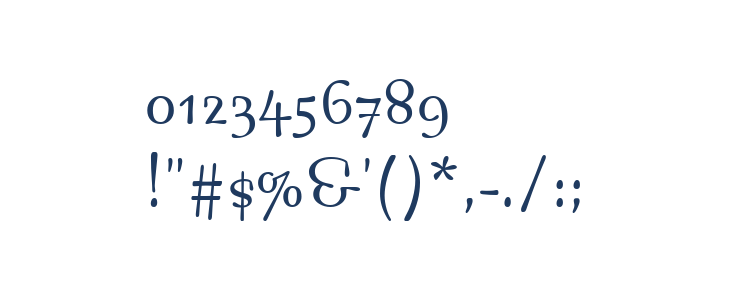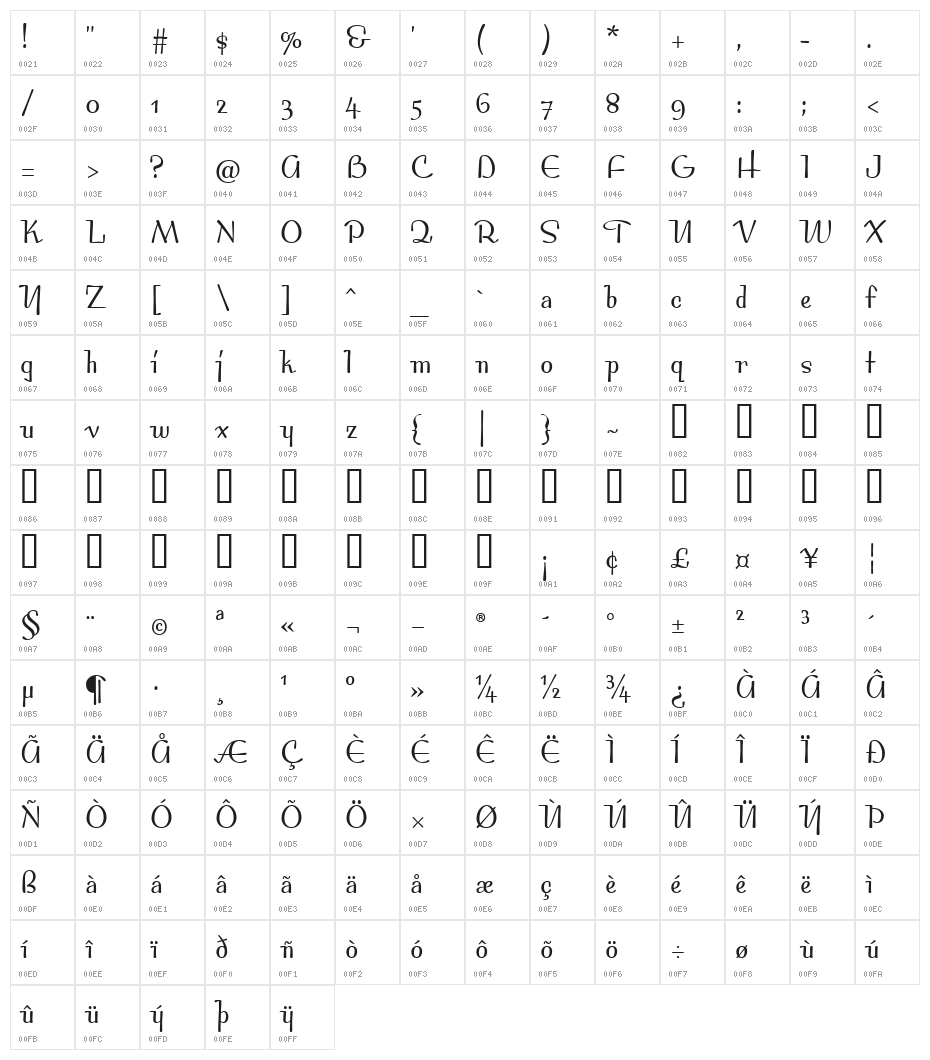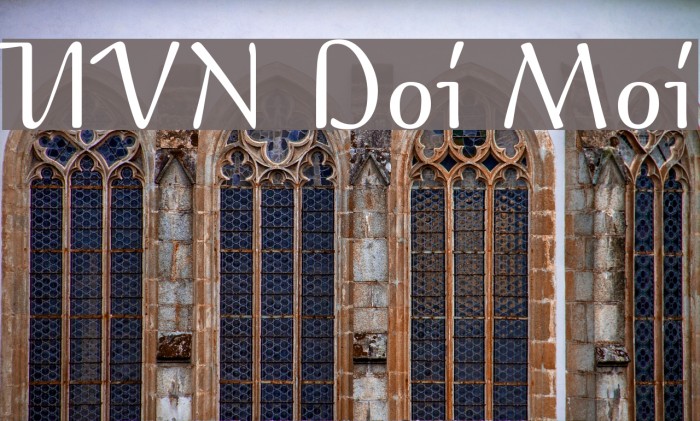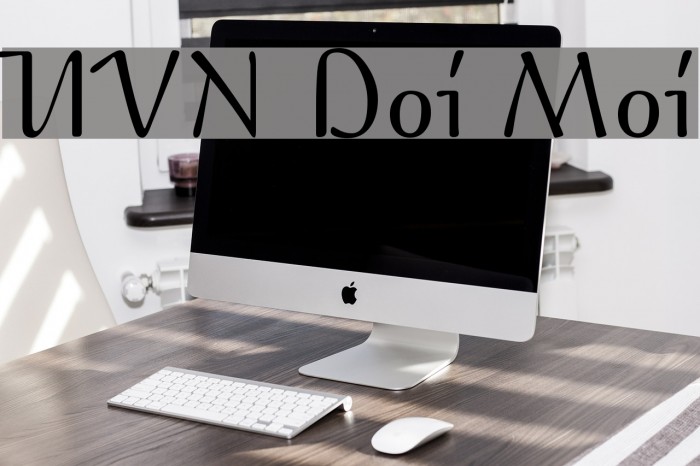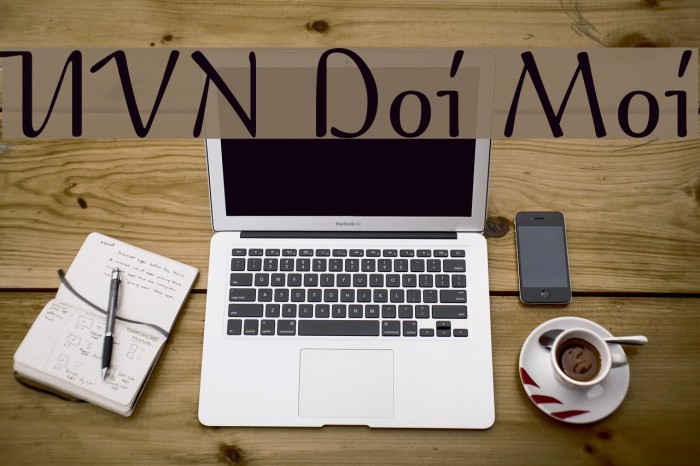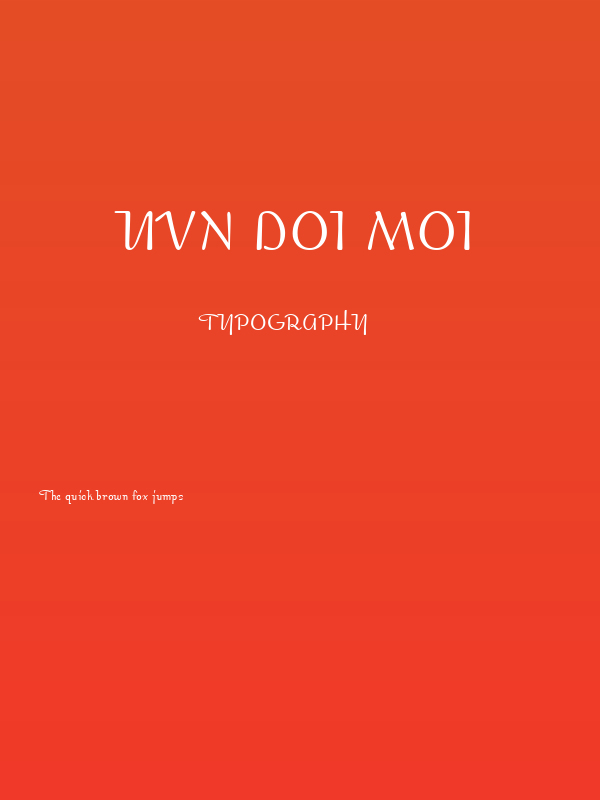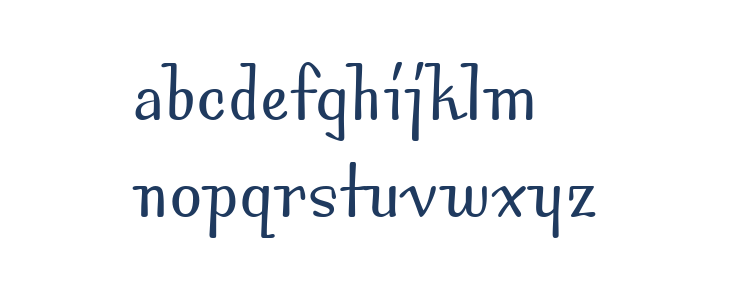
UVN Doi Moi Font
UVN Doi Moi Description
This font features a unique blend of modern and decorative elements, characterized by its playful and slightly whimsical design. The uppercase letters exhibit a distinct style with curved strokes and subtle flourishes, giving them a lively appearance. The lowercase letters maintain a consistent flow with a touch of elegance, while the numerals are clear and easy to read. Special characters are creatively designed, adding to the font's overall charm. The font's style is versatile, making it suitable for various creative projects.